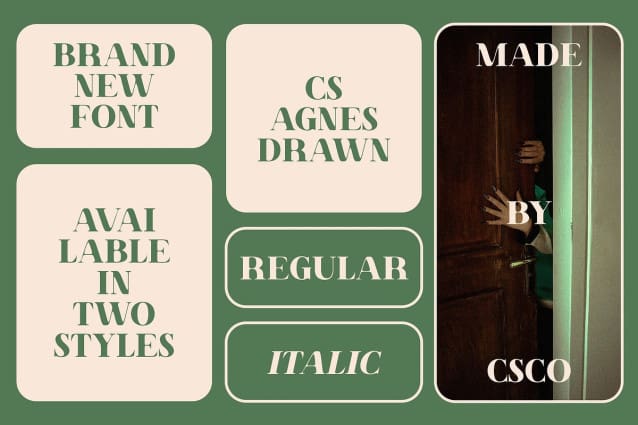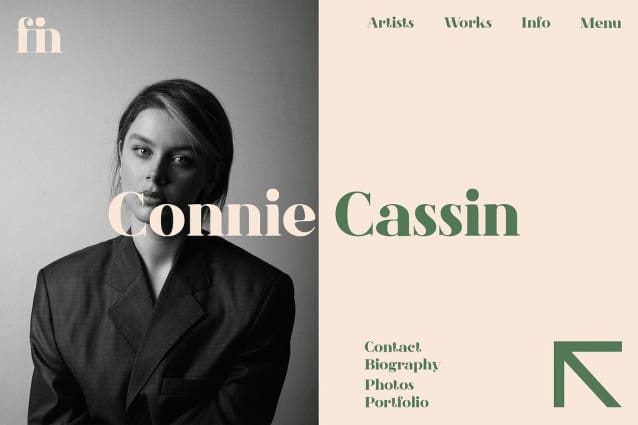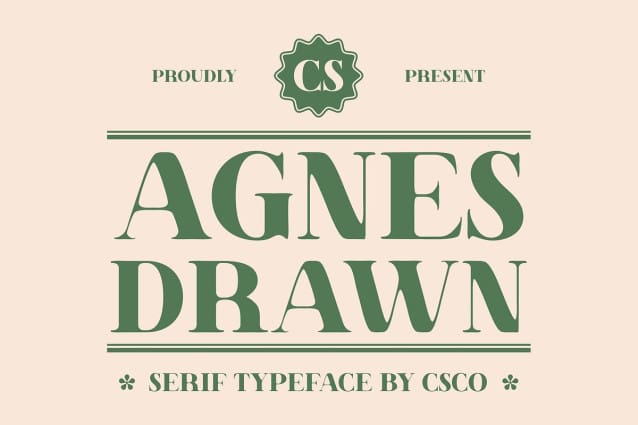
CS Agnes Drawn Font
CS Agnes Drawn Font is a classic serif font that commands attention with its bold shape and strong presence. The assertive character of this font makes it an excellent choice for designs that aim to convey confidence and sophistication. Its solid structure is complemented by distinctive serif details, creating a timeless aesthetic that resonates with traditional typography while remaining relevant in contemporary design.
Artistic Handcrafted Quality What sets this drawn font apart is its unique drawn effect, which adds an artistic and handmade touch to the font. This layer of craftsmanship infuses each letter with a vibrant and organic feel, transforming the text into a work of art. The combination of bold shapes and intricate details results in a visually captivating font that breathes life into your designs, making them stand out in any context.
Versatile for Various Applications This drawn font is versatile enough to suit a wide range of projects that require a blend of traditional elegance and artistic charm. Whether you’re designing formal invitations, elegant publications, or branding materials that emphasize classic beauty, this font provides the perfect balance of formality and creativity.